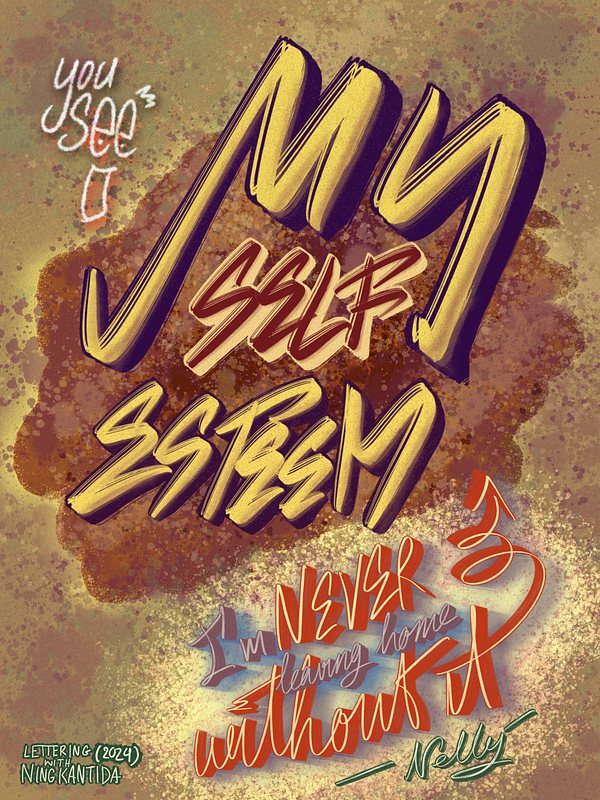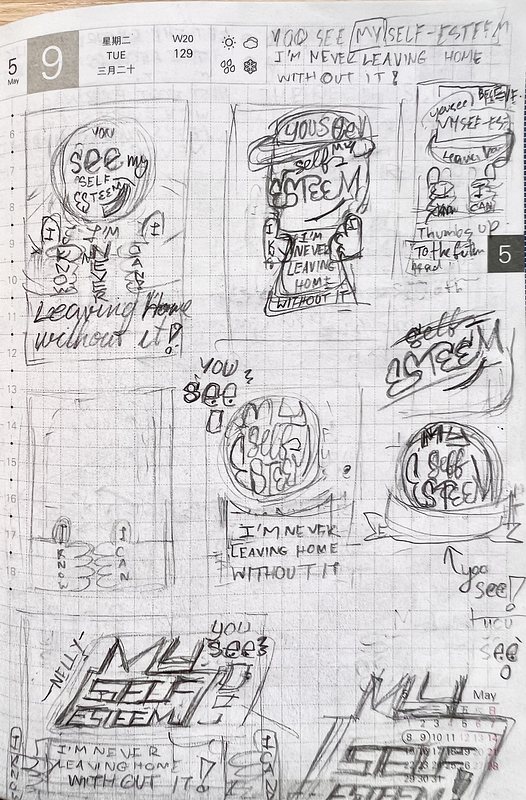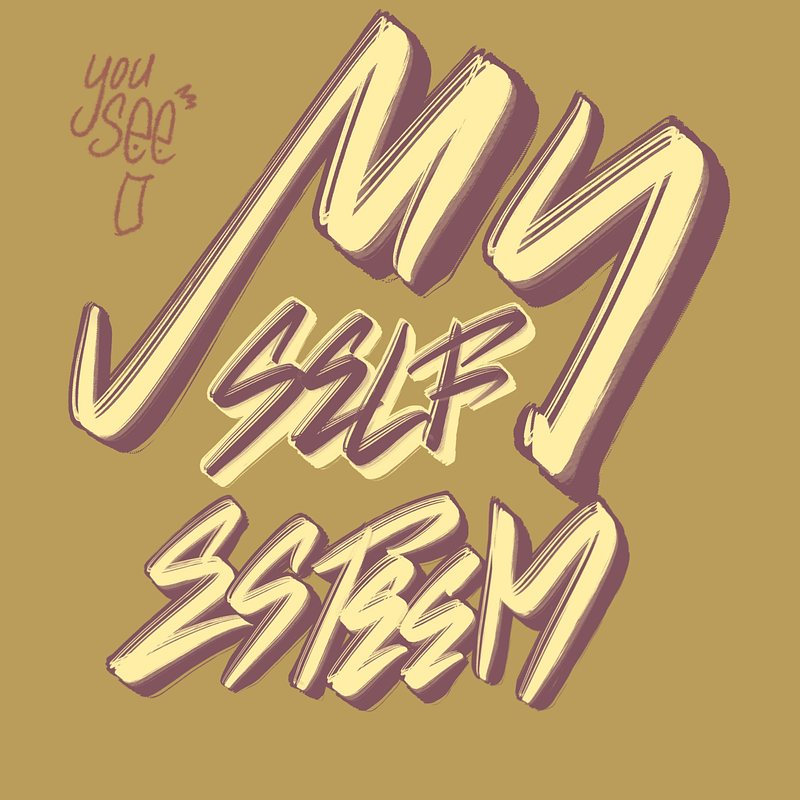
The Lyrics Lettering 00009-Self Esteem by Nelly
Throughout my life, I have been shy and socially awkward. One thing that always boosts me up is listening to "Self Esteem" by Nelly. It's been a staple in my playlist since I first stumbled upon it, to hype me up and boost my confidence.
I had an idea to incorporate a thumbs-up into a design with the words "I know" and "I can," but I couldn't make it work with other elements. So I reluctantly dropped the idea and opted for big and bold words to convey the empowerment of the song.
Although I enjoy designing this, I realized I struggle with choosing colors. If I were to revisit the design, I would focus on making the colors more daring and fearless.